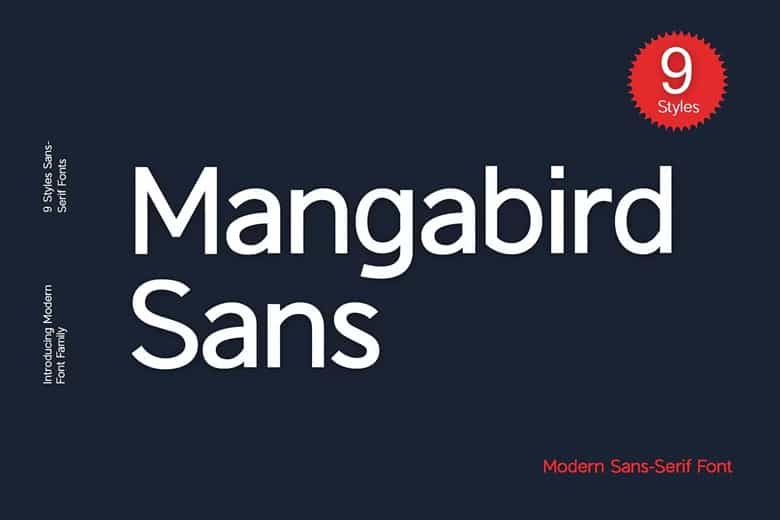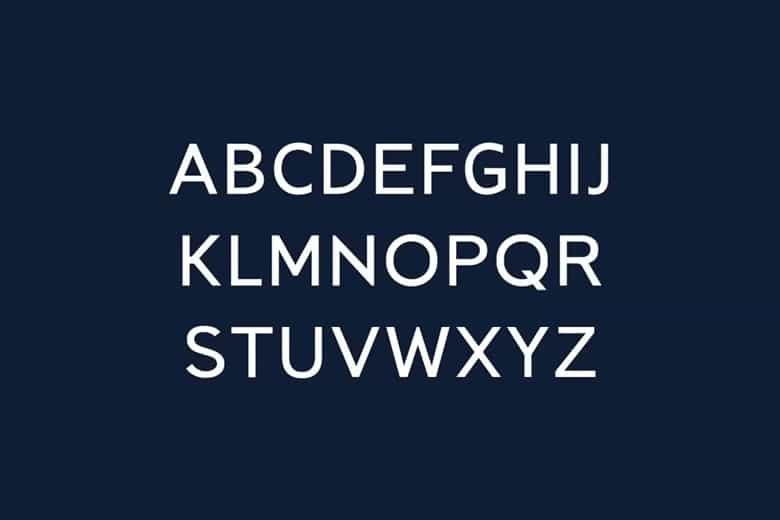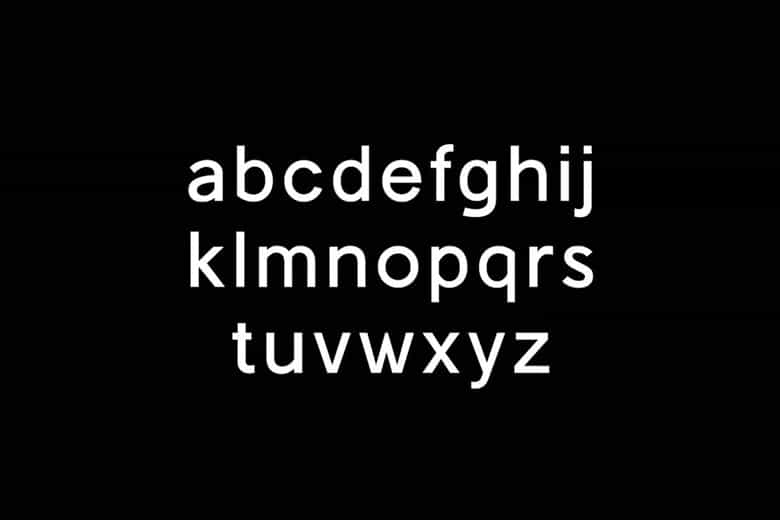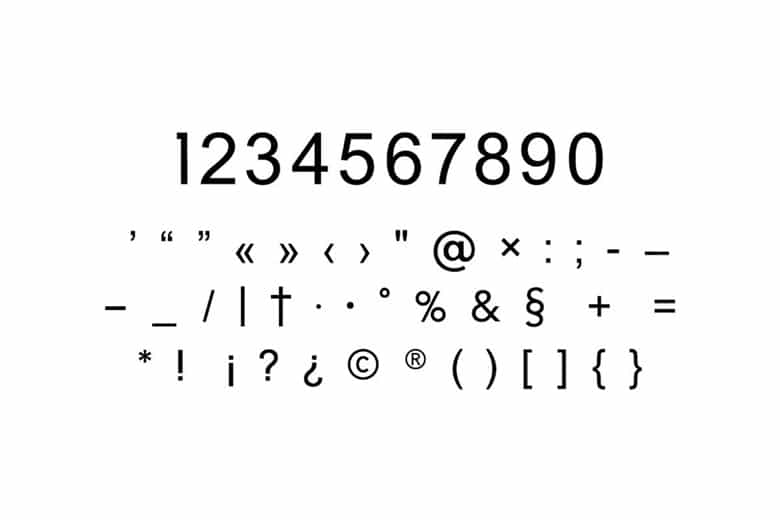
Mangabird San is a classy, elegant, and stylish sans serif font family. This font could be best appreciated for various uses including stationeries, logo, wedding, quotes, magazines or books, headers, branding among other uses. Concerning fashion products, fashion branding or editorial design also possesses both the male and the female chimerical qualities.